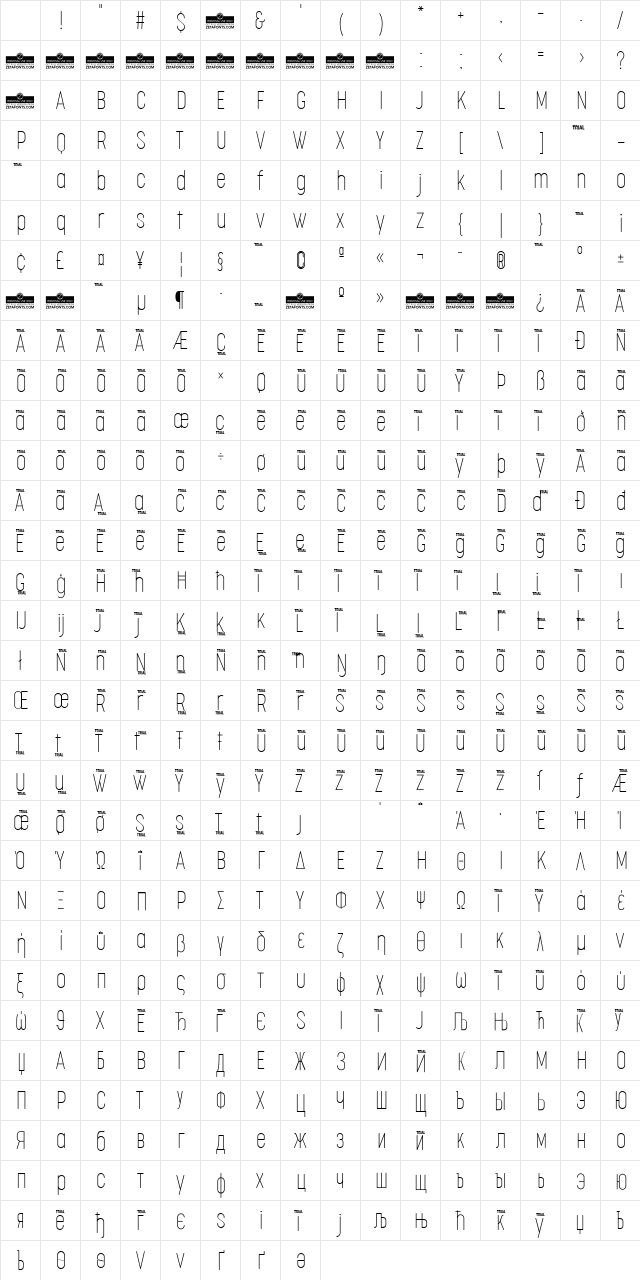
Complete Cocogoose Compressed Trial Thin glyph index. Displaying only characters natively supported by Cocogoose Compressed Trial Thin font.
Cocogoose Compressed Trial is a composed and adaptable typeface that performs quietly and consistently across a wide range of design contexts. Its slender proportions lend an understated elegance to any composition.